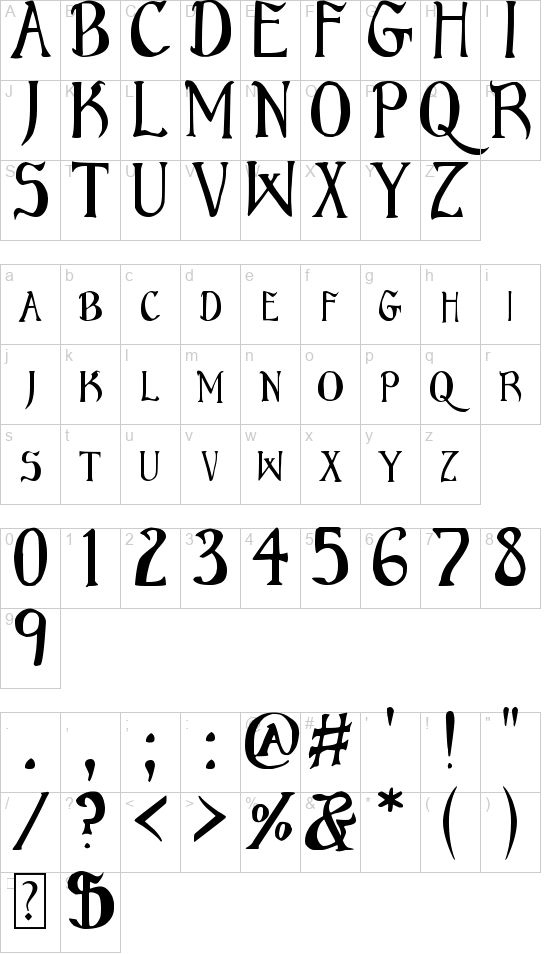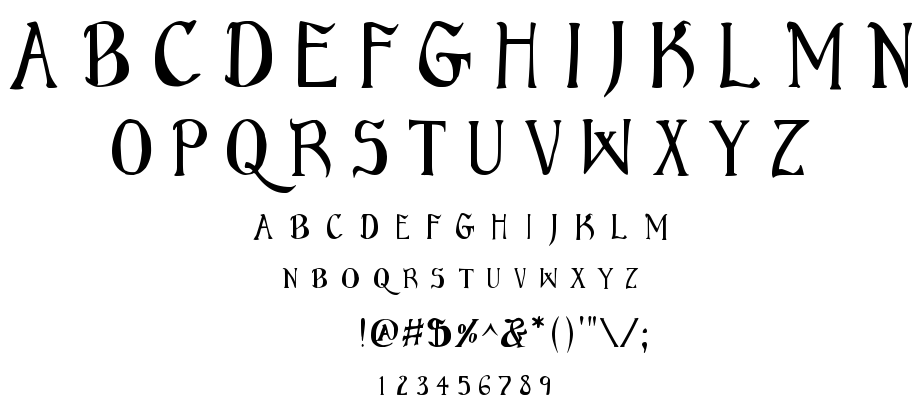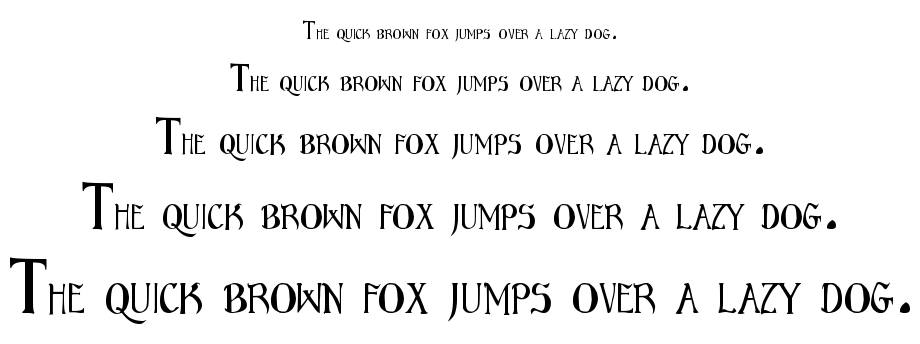
Part of the Bruce font family – this is a modern gothic font with a medieval / fantasy / rennaisance flavor. Excellent for titling, tag lines, and desktop publishing applications.